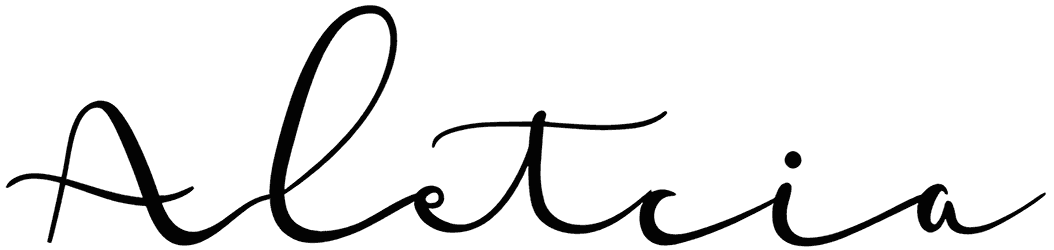
Aletcia Font
Aletcia is a beautiful handwritten script font that adds a touch of personality to any design. Whether it’s for a poster, a presentation, a t-shirt, or anything else, this love font is perfect. Although it is barely legi…
Aletcia is a beautiful handwritten script font that adds a touch of personality to any design. Whether it’s for a poster, a presentation, a t-shirt, or anything else, this love font is perfect.
Although it is barely legible, the Aletcia font stands out for its modern look and tiny connected lettering. This beautiful font is part of RB’s huge free font collection and will really make your next creative project pop.